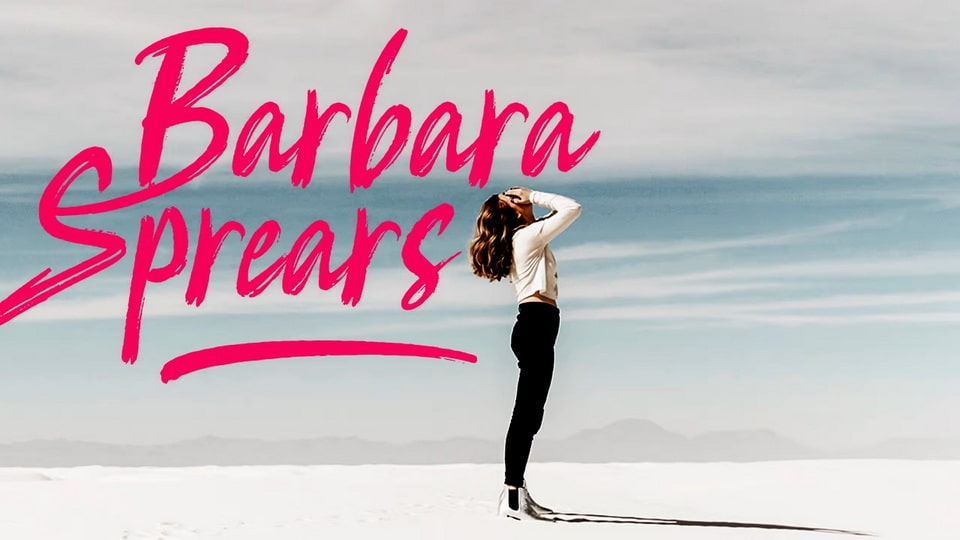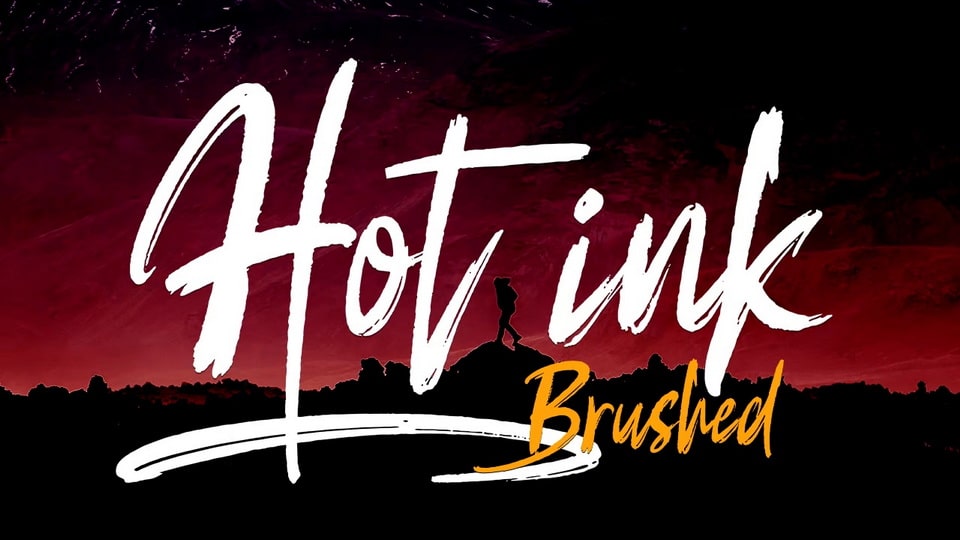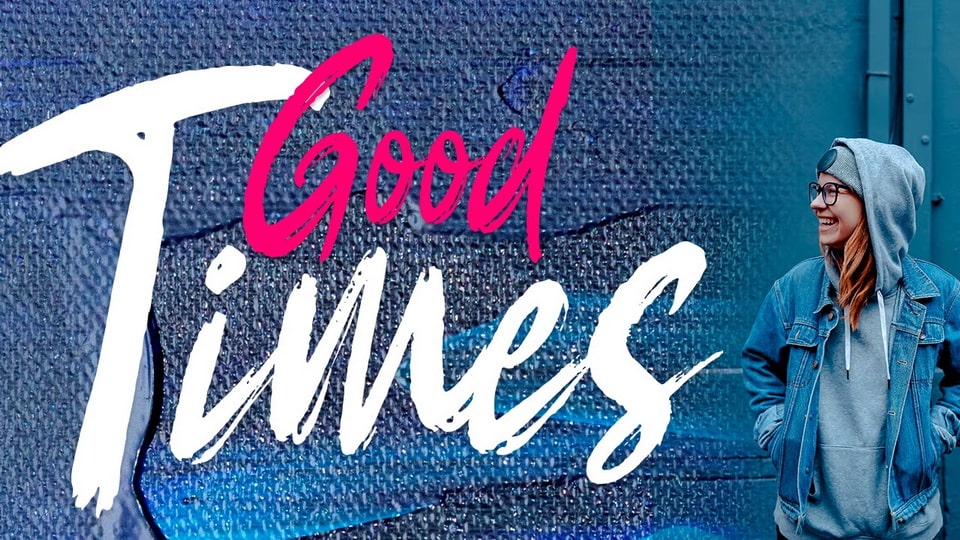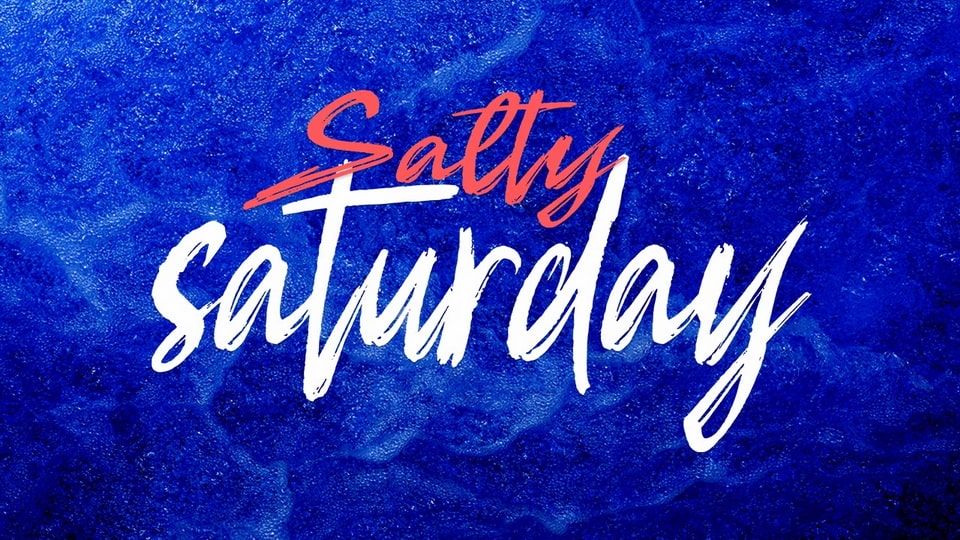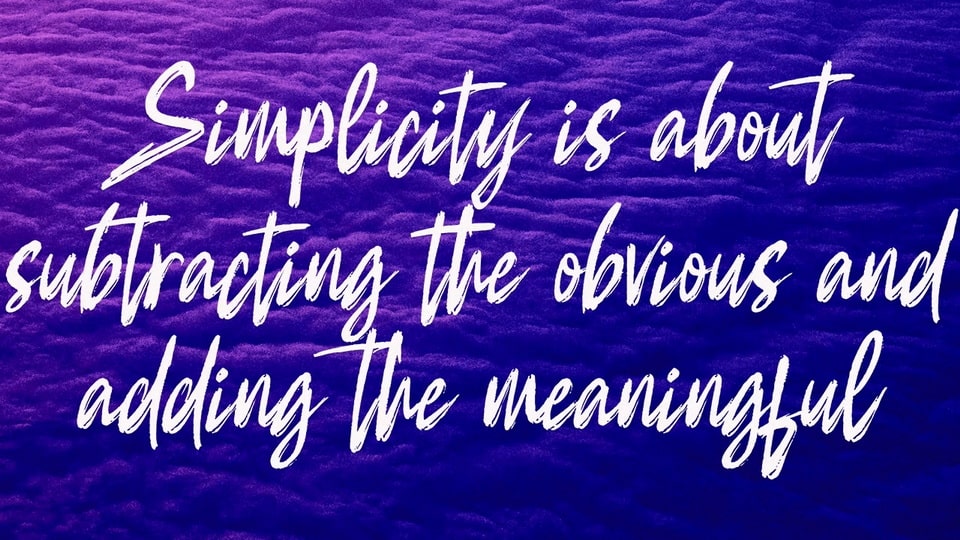
Hot Ink Font
Hot Ink is a modern hand painted brush font with a fast and dynamic flow. It’s perfect to create bold messages, great for merchandise, apparel, social media, advertising, websites, quotes, posters or anything which needs impact.